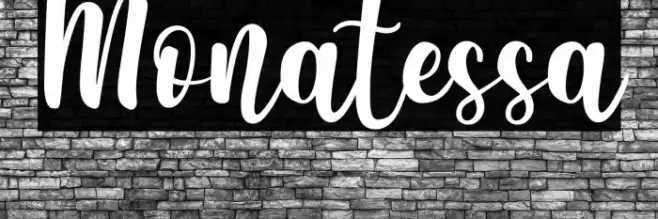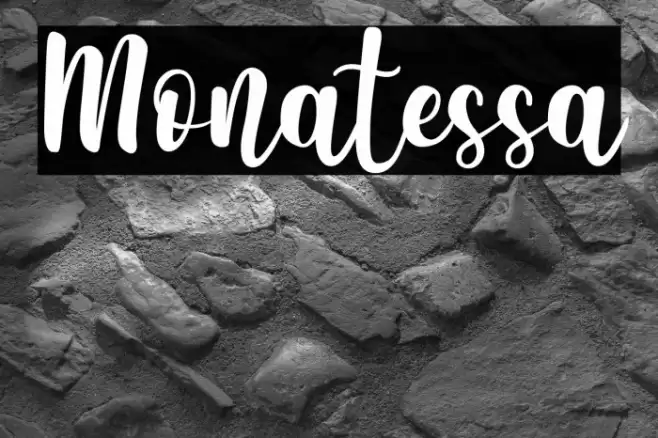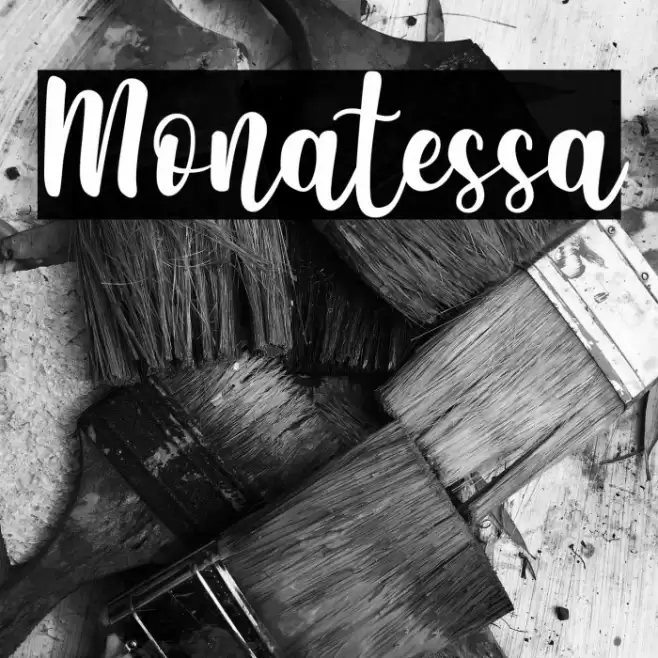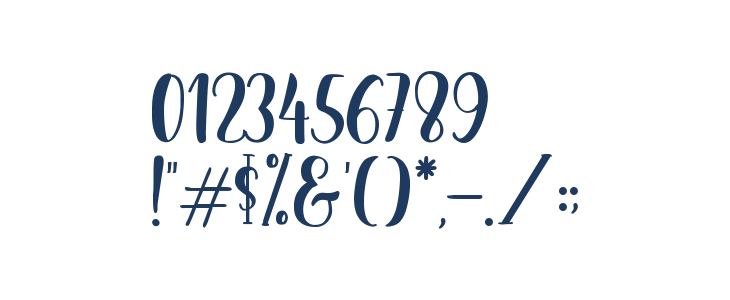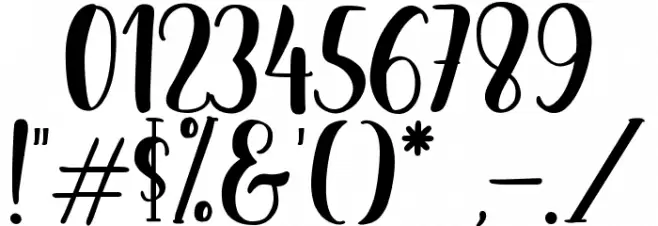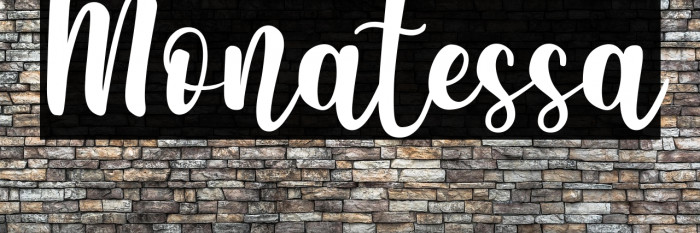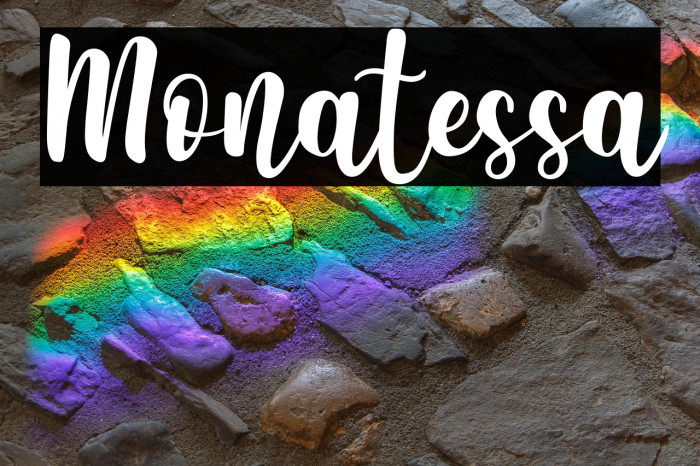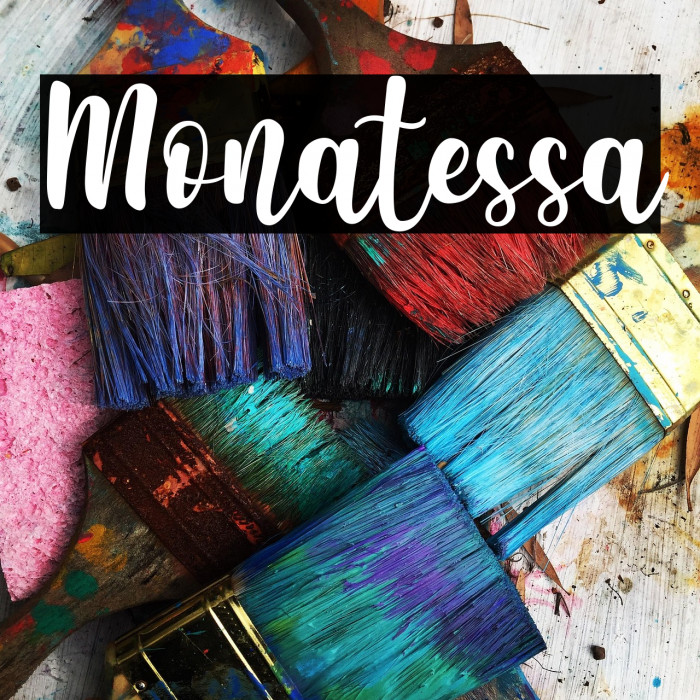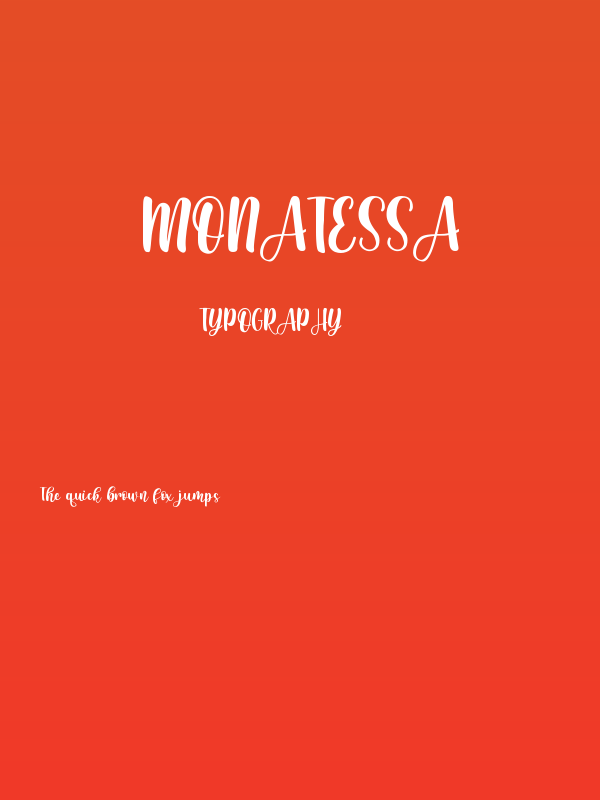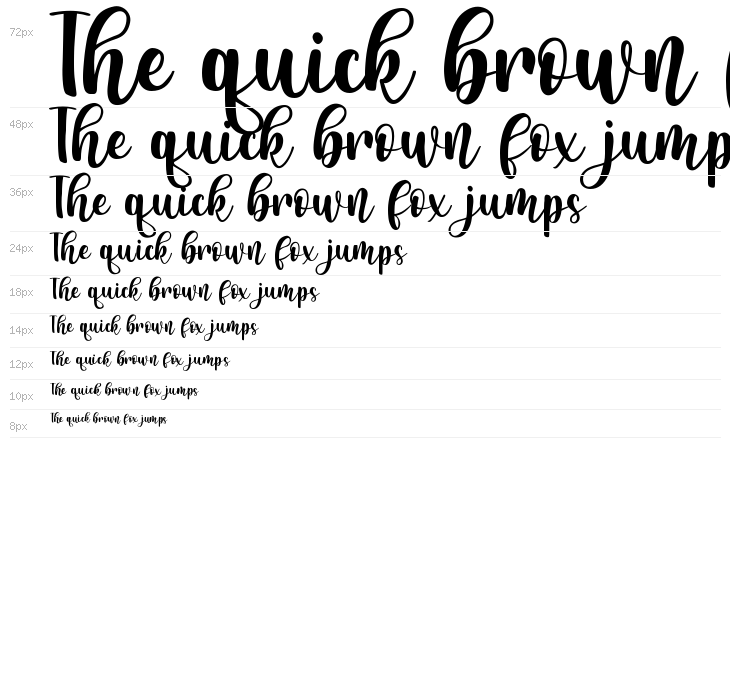
Monatessa Font
Monatessa Description
This font features a bold and flowing script style, characterized by its elegant and smooth curves. The letters are connected in a cursive manner, giving it a handwritten appearance. The uppercase letters are tall and slightly narrow, while the lowercase letters maintain a consistent flow with a slight slant, adding to its dynamic look. The numbers and special characters follow the same fluid style, ensuring a cohesive appearance across all glyphs. This font exudes a sense of sophistication and creativity, making it ideal for projects that require a personal touch.
A bold, flowing script font with elegant, cursive connections from Regular fonts.
- Proposed Projects: Ideal for wedding invitations, greeting cards, branding, and logo design.
- Use Case: Logos, Invitations, Decorative text